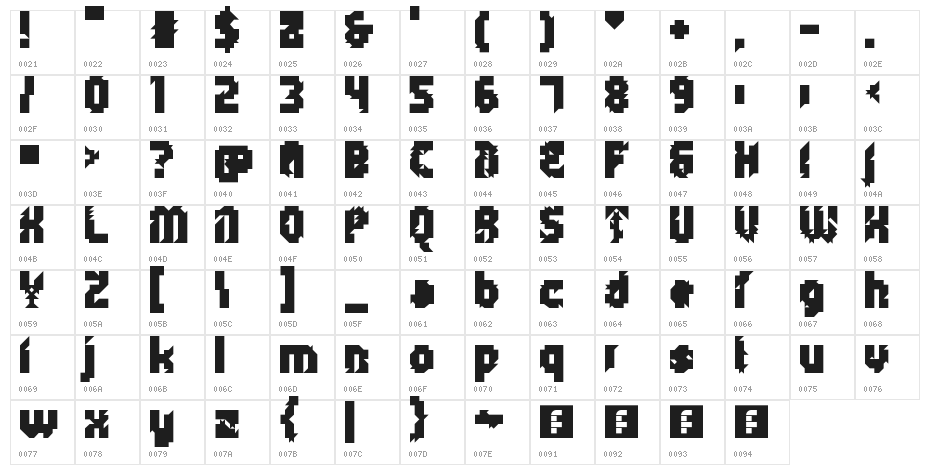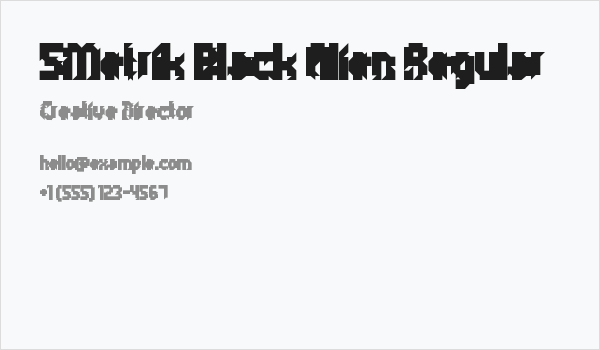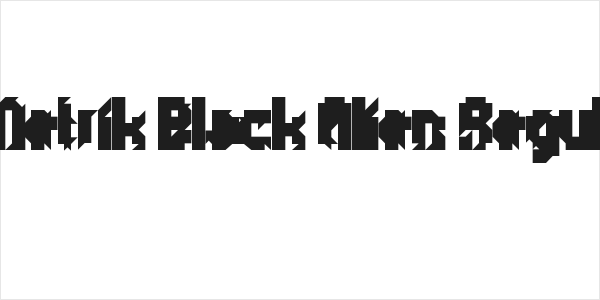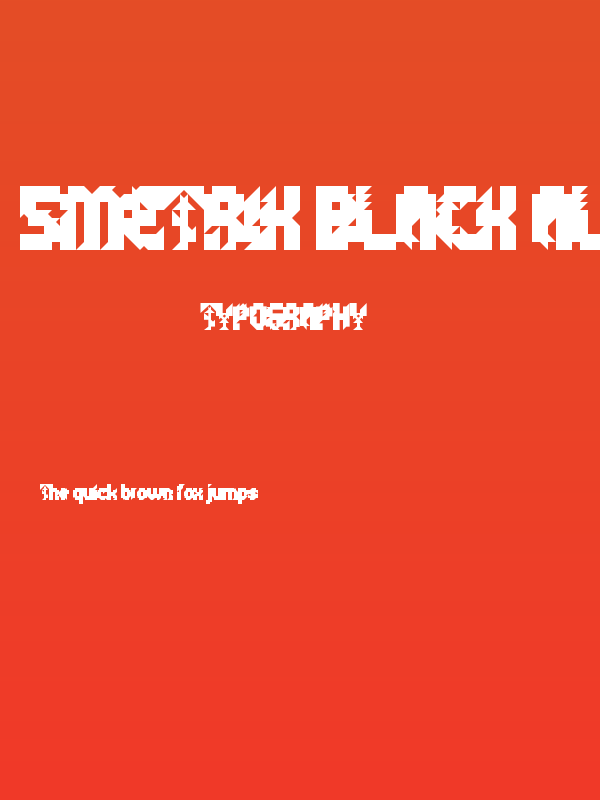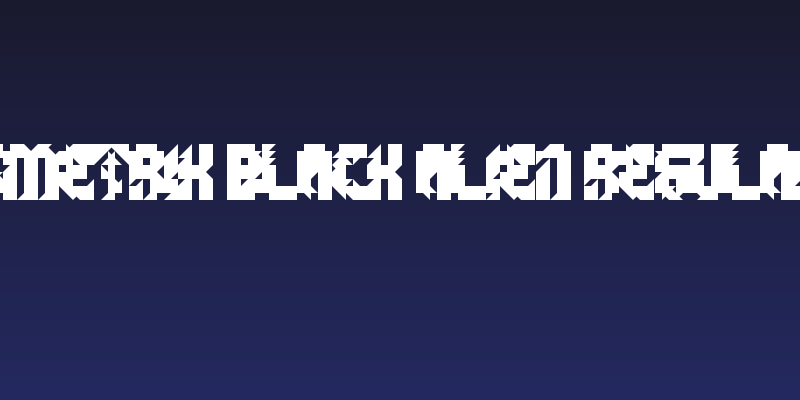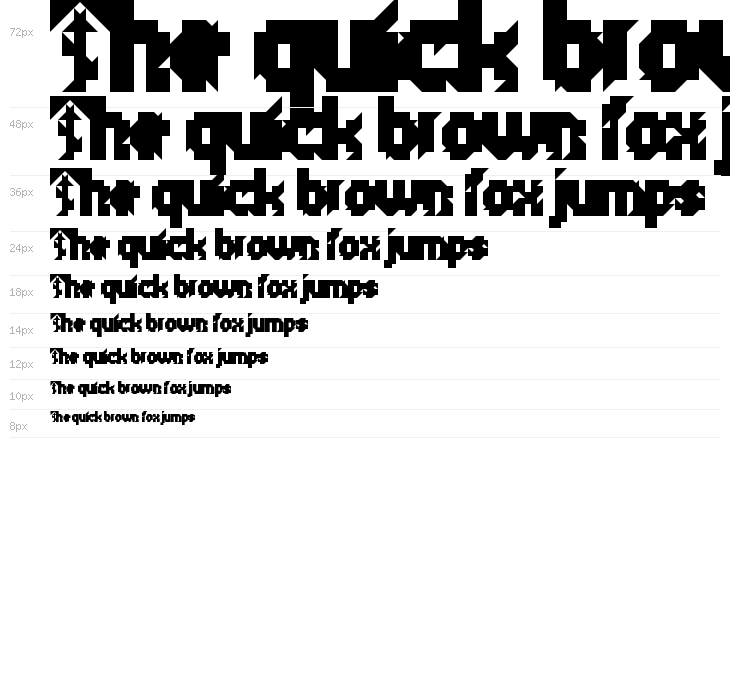
5Metrik Black Alien Regular Font
5Metrik Black Alien Regular Description
This font features a bold, geometric design with sharp, angular edges and a futuristic aesthetic. The characters are heavily stylized, with a blocky appearance that incorporates jagged, triangular elements, giving it a distinct, alien-like feel. The uppercase and lowercase letters maintain a consistent style, while the numbers and special characters follow the same angular theme. The font's unique design makes it stand out, ideal for projects that require a modern and unconventional look.
| Overall Style | Futuristic, Decorative |
| Proposed Projects | Ideal for sci-fi themed posters, video game titles, futuristic branding, and any creative project seeking a unique, standout typeface. |